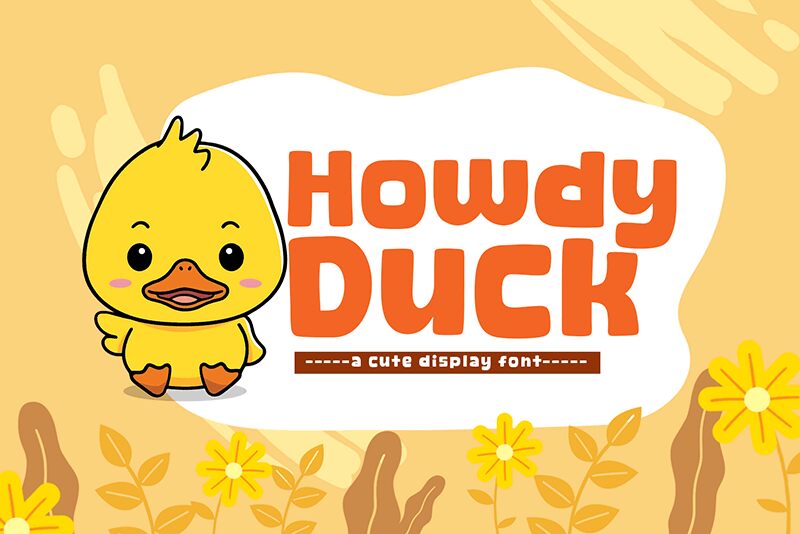
Howdy Duck
Howdy Duck font by Khurasan is a bold cartoon display font that’s ideal for a refreshing and readable project that deserves all the attention. Cute and fun, this free font features curvy letters with wide spaces in between that allow easy reading despite their design. It uses both angles and smooth arches for the front and middle sections.
Use Howdy Duck to label packaging bags and boxes or to add texts to general branding projects, badges, posters, social media posts, greeting cards, ads/campaigns etc. It can also be used in typography artwork including more specialized ones like button designs for eCommerce websites/apps.